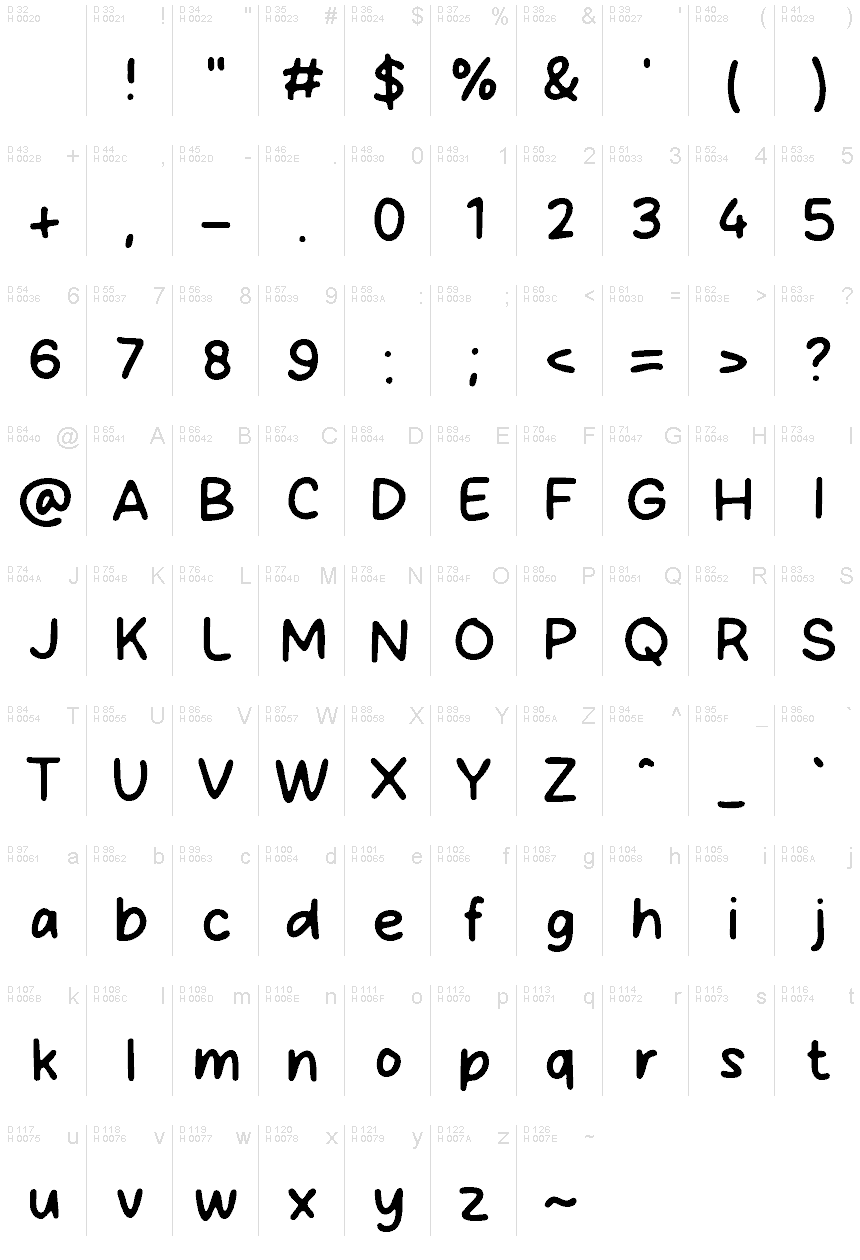
Simple Day
Simple Day font is a handwritten typeface created by MJType. Friendly, approachable, and casual, this lovely font combines handwriting-inspired letters with a modern design twist. Its quaint ligatures give it further charm and make its texts appear more natural. Additionally, the light characters add pleasantness to each composition.
This free handwritten font works best in headings or accent words of large sizes. Exported social media posts such as Instagram or Facebook are one option for use along with Pinterest banners and stories on mobile apps or websites. Simple branding projects such as T-shirts, caps, stationeries or tote bags with encouraging phrases also benefit from the font’s appearance.